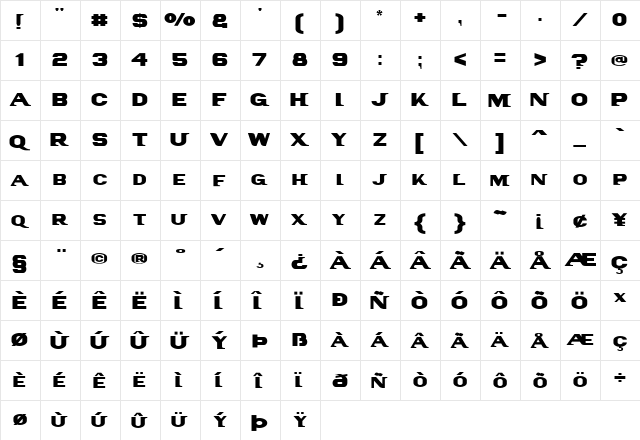
PanAmTextCaps Regular
Design Context for PanAmTextCaps Typeface
PanAmTextCaps takes a measured approach to typography — its balanced proportions and neutral character make it a reliable workhorse for both digital and print work.